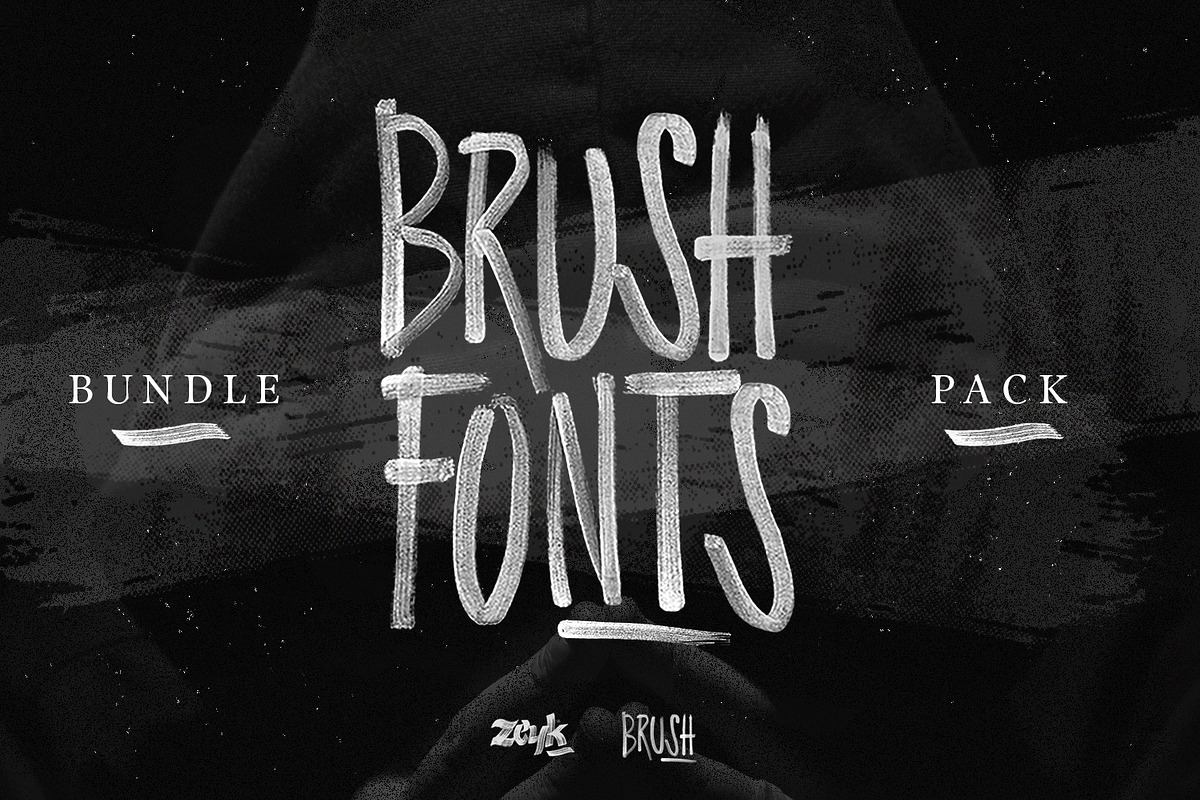
Brush Fonts Pack / Bundle Free Download
Brush Fonts Pack / Bundle Free Download is a dynamic and creative collection of hand-painted, brushstroke-style fonts designed to add energy and personality to your designs. Featuring a variety of brush fonts—from smooth and flowing to bold and textured—this bundle is perfect for creating custom logos, posters, social media graphics, invitations, and anything that needs a handcrafted, artistic touch.
Brush Fonts Pack / Bundle Free Download offers a diverse range of brush font styles that bring authenticity and texture to your typography. Whether you're designing for a creative campaign, building a brand identity, or making promotional materials, these fonts will add a bold, expressive feel to your projects.